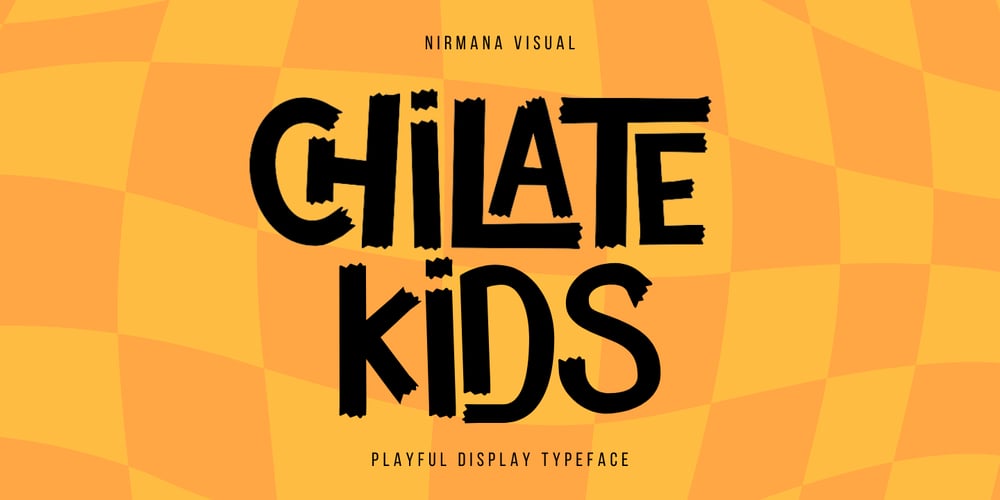
Chilate Kids
Chilate Kids font
Chilate Kids Font Family was designed by Sigit Dwipa and published by Nirmana Visual. Chilate Kids contains 1 styles and family package options. “Chilates Kids” is a playful and charming typeface perfect for children’s storybooks. This font features a hand-drawn aesthetic that captures the imagination.